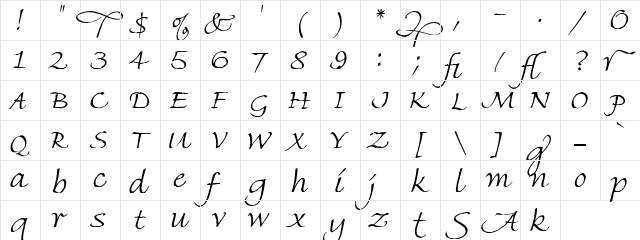
Hand Write Regular
Design Context for Hand Write Typeface
Hand Write flows with the natural rhythm of handwritten lettering, making it ideal for designs that call for warmth and personal expression.
Font Pairing: Combine Hand Write with a simple geometric sans for maximum contrast — the tension between flowing curves and clean structure is a classic typographic pairing.
Pro Tip: Use Hand Write for short runs of text — names, titles, or taglines. Extended body copy in script faces tires the eye quickly.